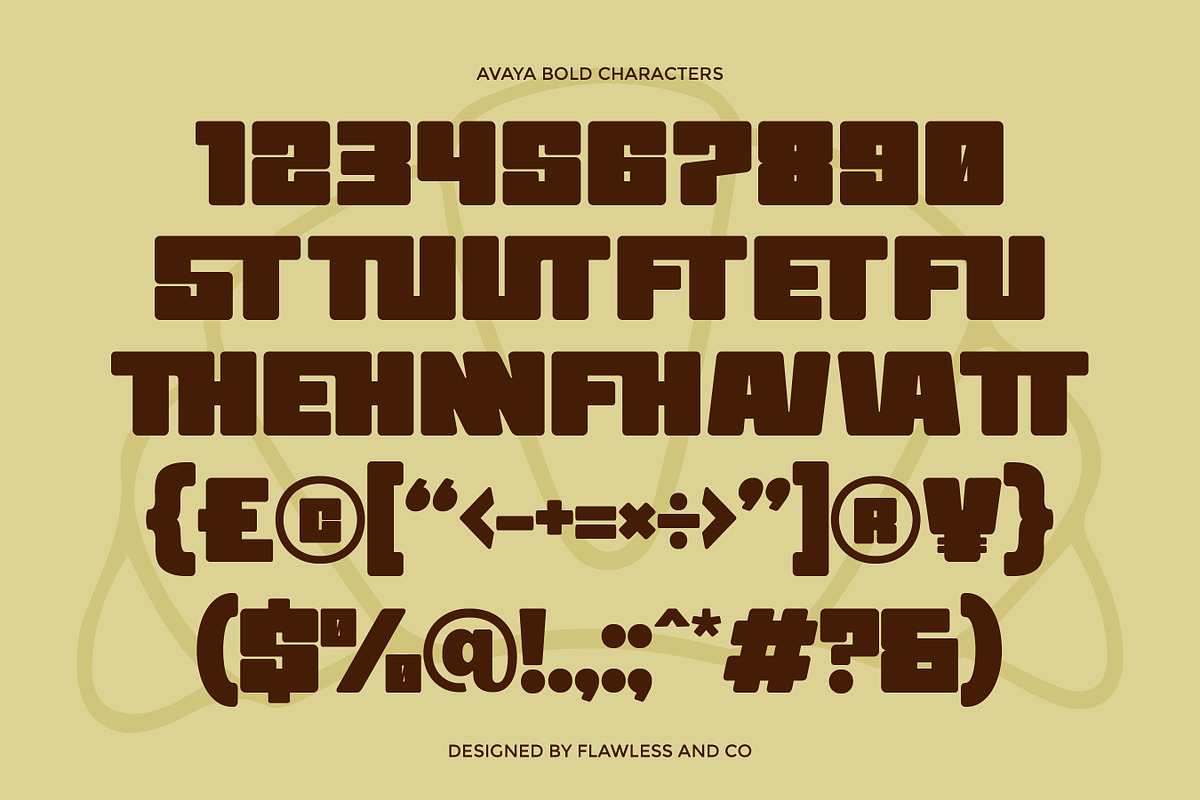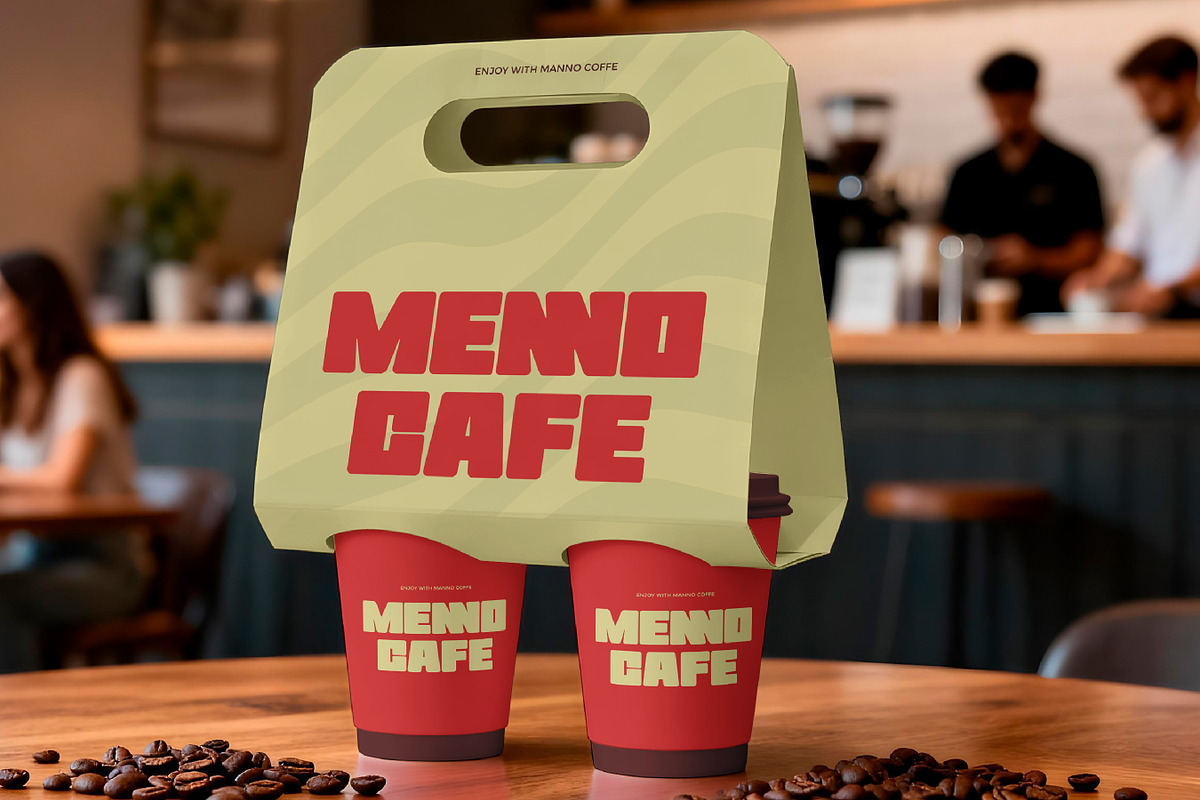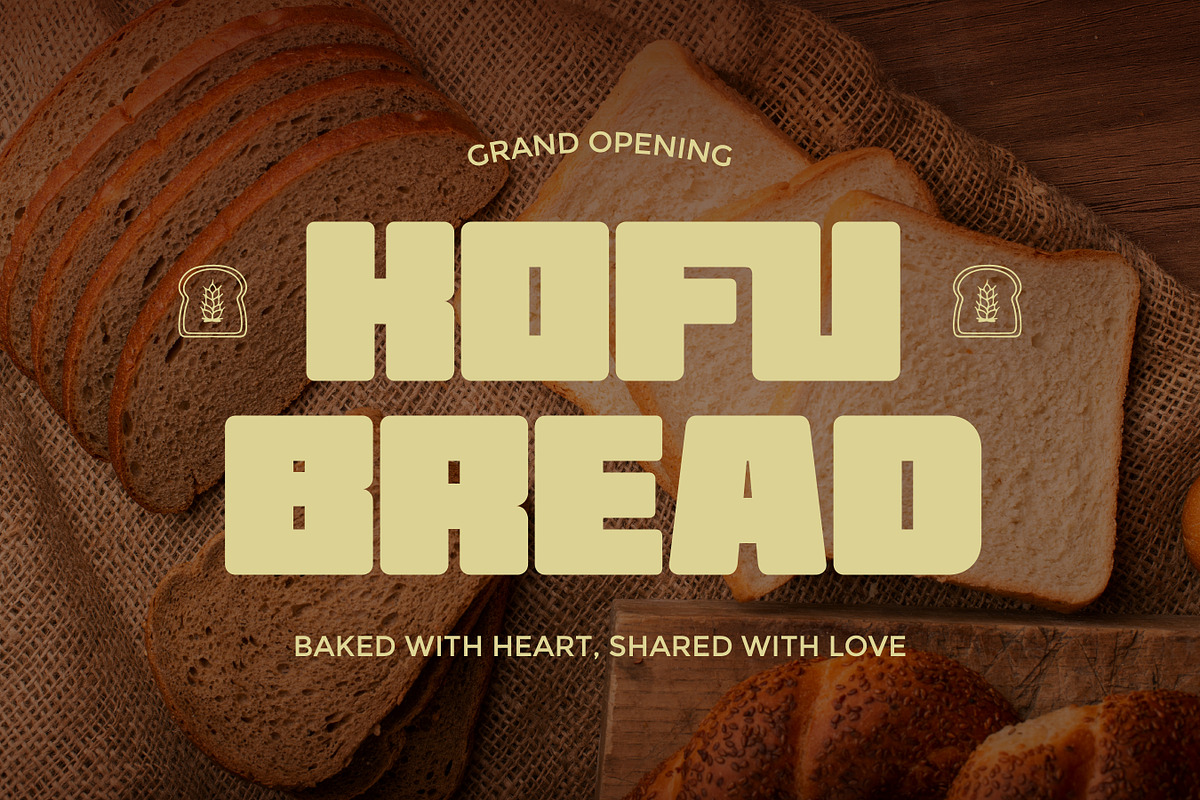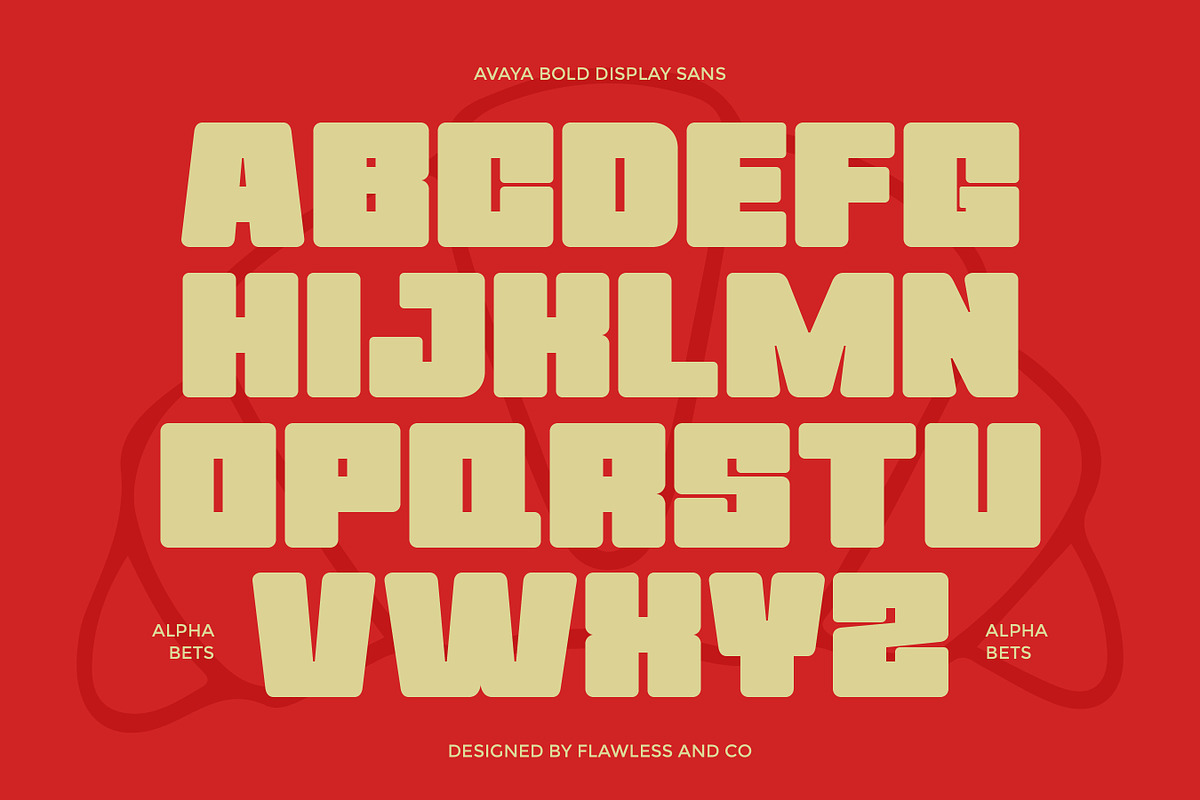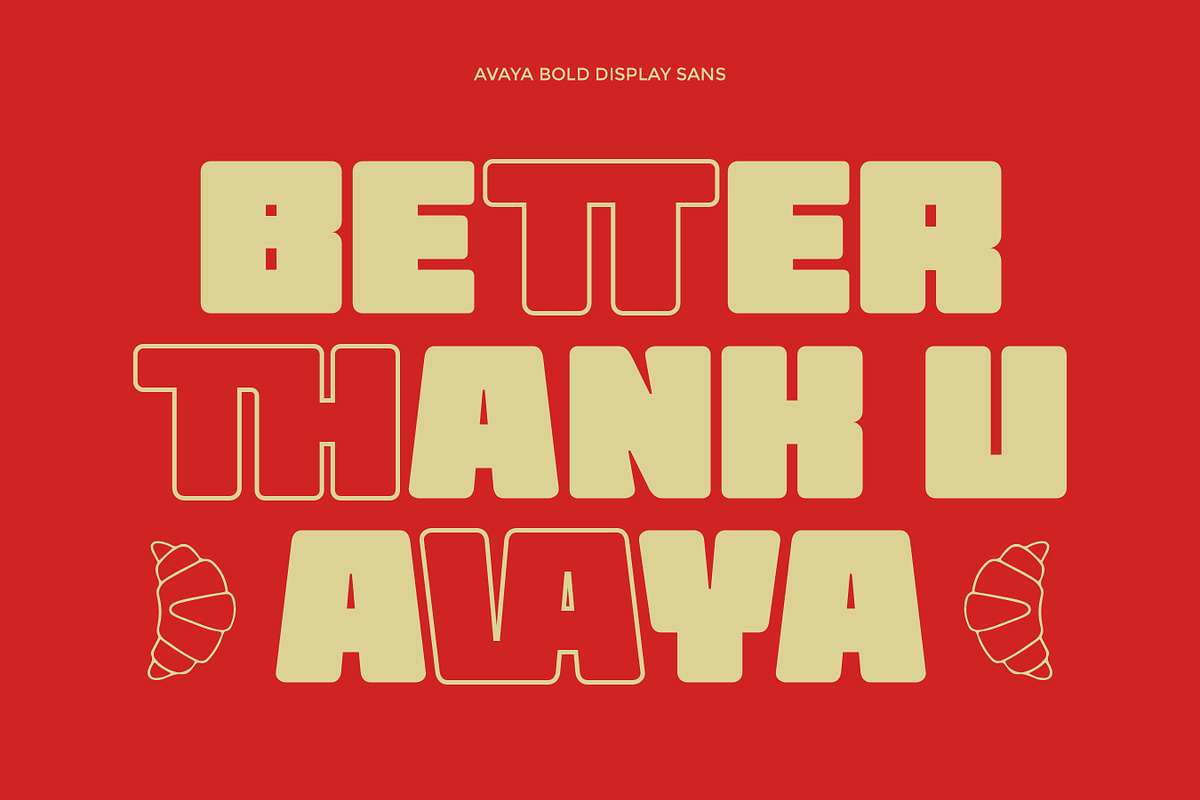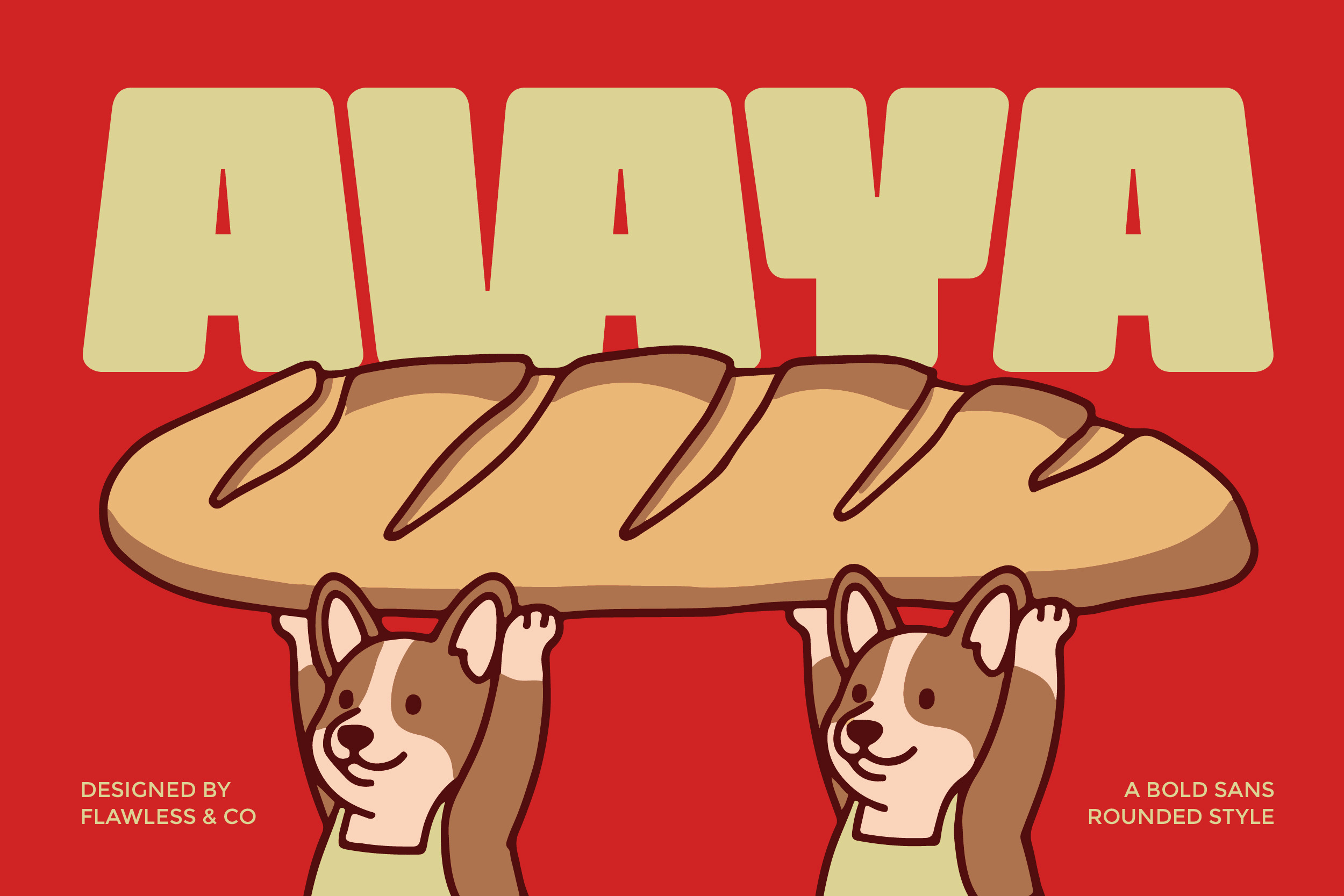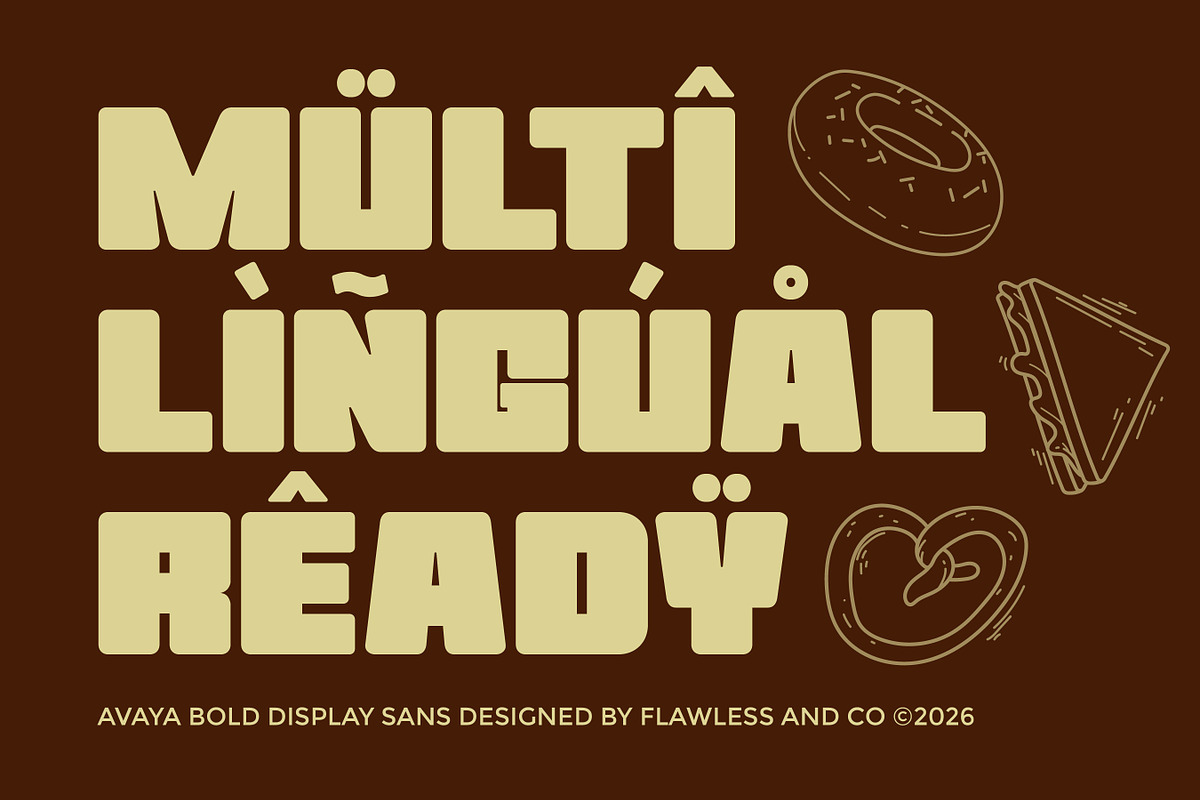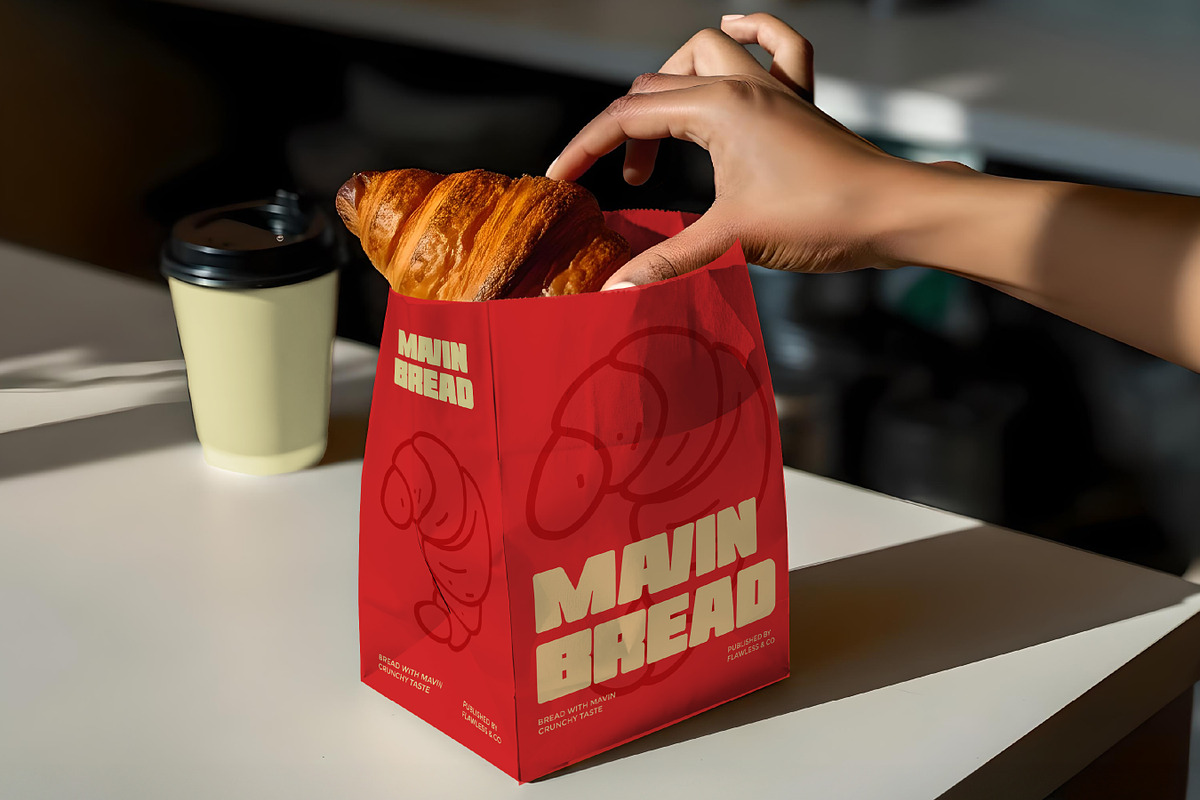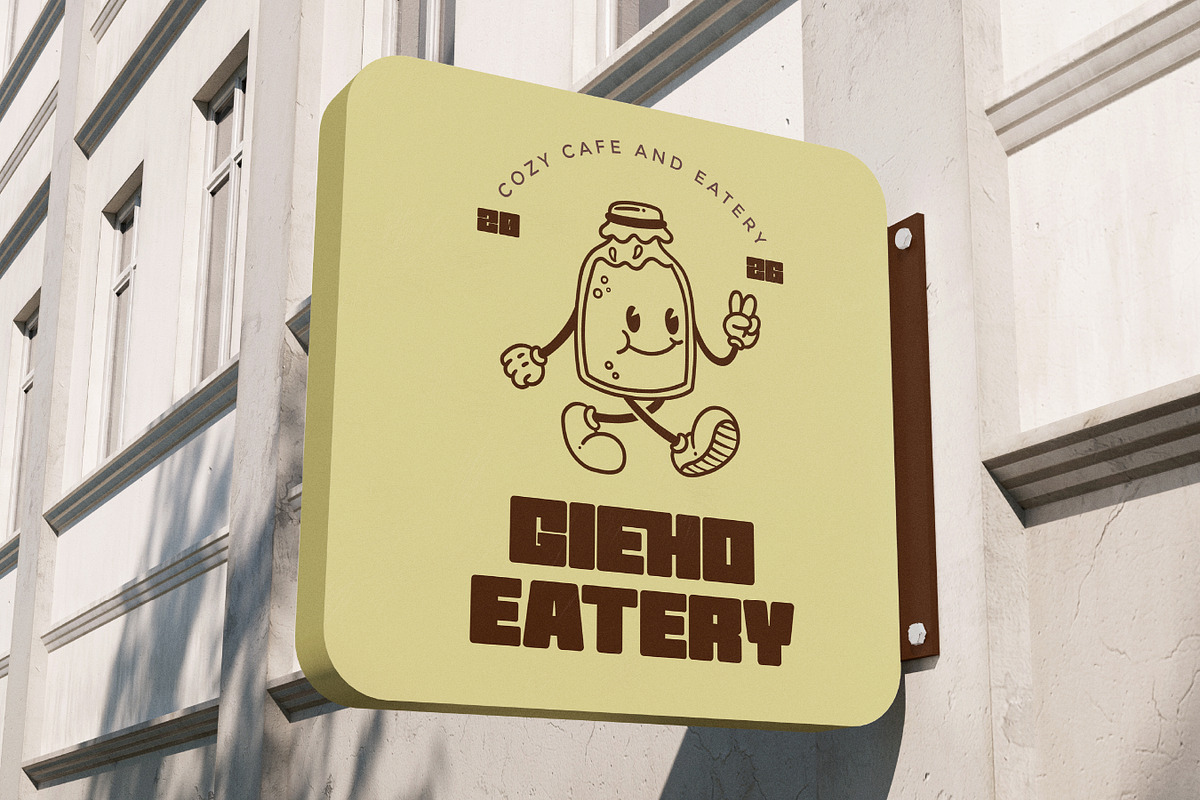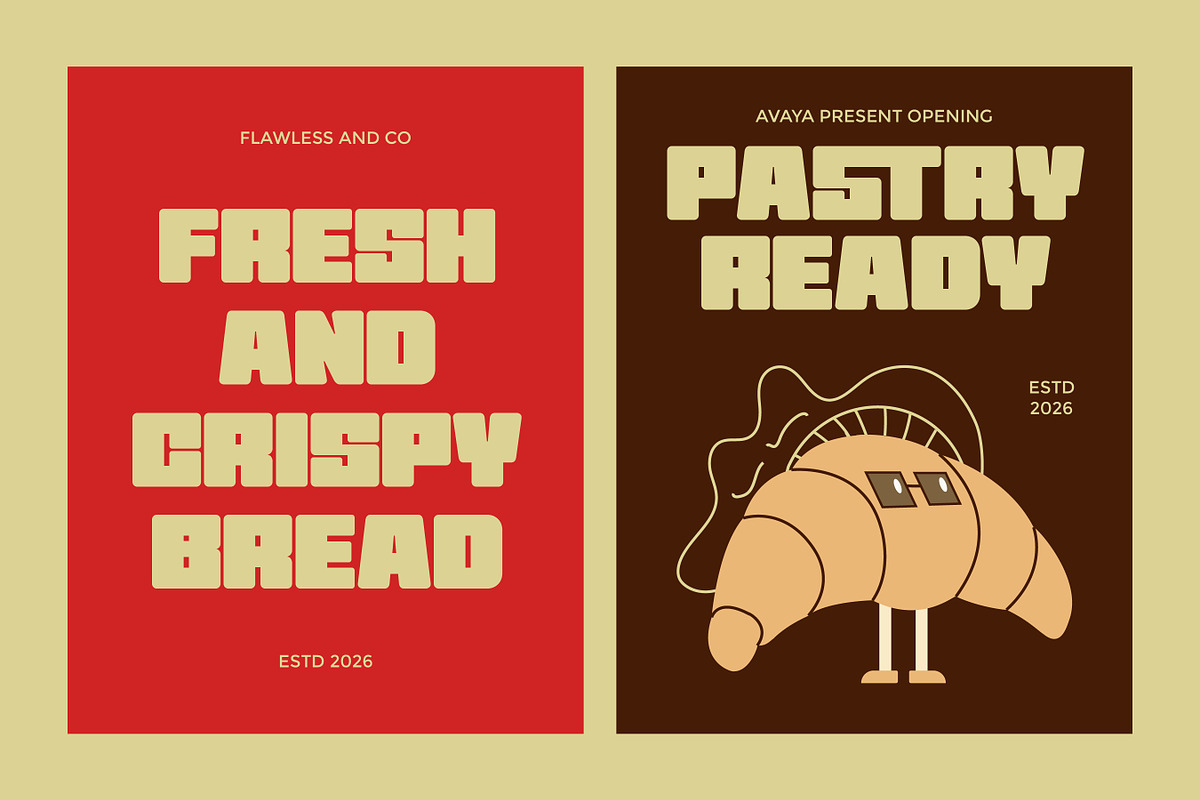
Avaya - Bold Display Sans Font
Avaya - Bold Rounded Display Sans Font
Avaya is a modern bold rounded display sans typeface that combines strength with softness in a perfectly balanced design. Its solid structure and curved edges create a bold presence without feeling harsh, giving your typography a friendly and approachable personality. The rounded details add warmth and playfulness, making it highly versatile for both professional and creative projects. Whether you’re designing eye-catching headlines or building a brand identity, Avaya delivers clarity, charm, and modern appeal.
Alternates & Ligatures
Who Should Use Avaya?
Avaya is ideal for designers, creatives, and brands who want a bold yet friendly font with a modern appeal. It’s especially suited for projects that require strong visibility combined with a soft and approachable tone.
Suitable For:
Branding and logo design
Creative and playful projects
Packaging and product labels
Social media content
Posters and advertising
Editorial headlines
Kids and family-oriented design
Modern display typography